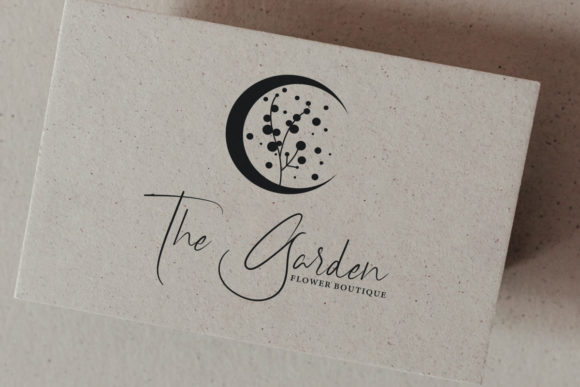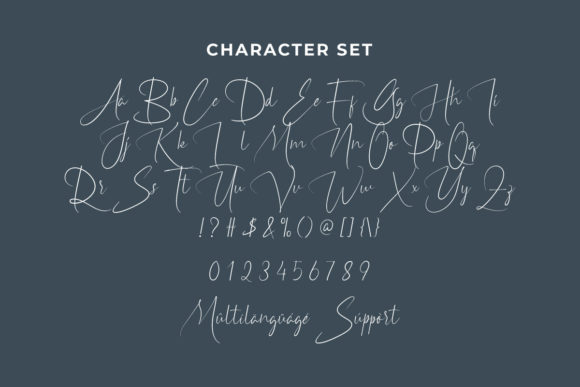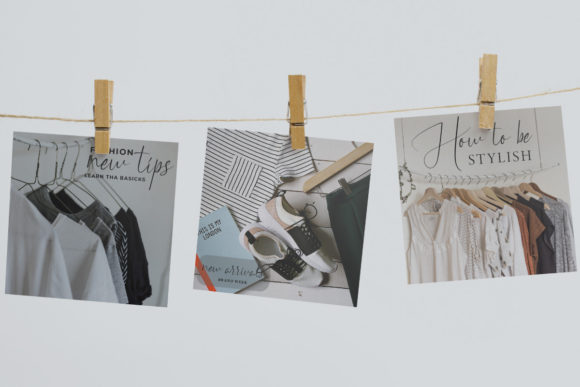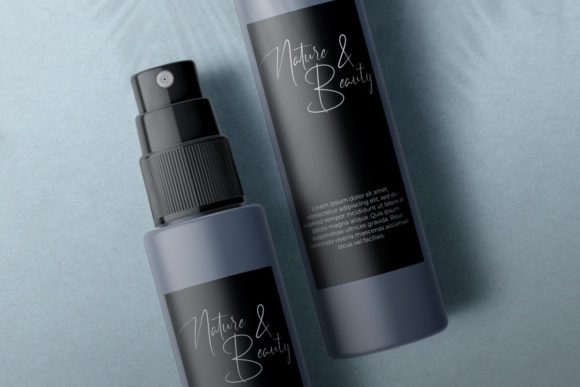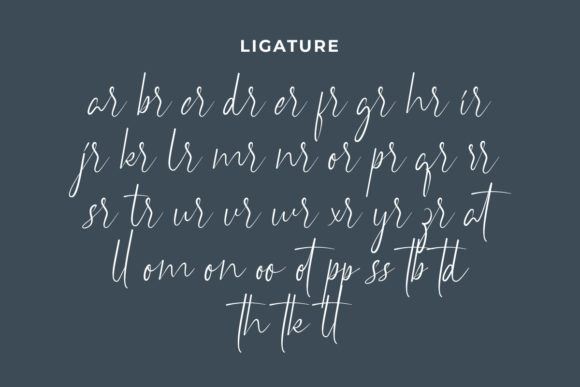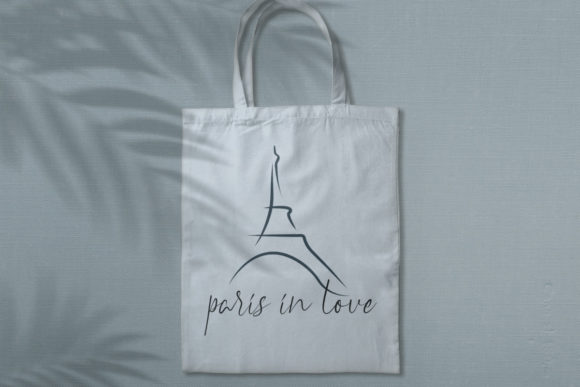
Introducing Happy Moon Font: Elevate Your Designs with Elegance and Versatility
Are you on the hunt for a font that embodies both elegance and versatility? Look no further than the Happy Moon Font. This stunning script font is designed to bring a touch of sophistication to a wide array of crafty projects, making it a must-have for designers and crafters alike. Whether you’re working on letterheads, titles, stationery, or any other creative endeavor, Happy Moon is sure to impress.
What Makes Happy Moon Font Stand Out?
Happy Moon Font is characterized by its thin and elegant script style. The font’s sleek lines and fluid curves give it a modern yet timeless feel, making it perfect for those who appreciate refined aesthetics. Its versatility is one of its most notable features, allowing it to seamlessly integrate into various design projects.
Key Features of Happy Moon Font
- Thin and Elegant Script Style: The Happy Moon Font boasts a delicate and sophisticated appearance, ideal for creating visually appealing text.
- Versatility: From formal letterheads to creative stationery and captivating titles, this font adapts effortlessly to different design needs.
- PUA Encoding: Happy Moon Font is PUA (Private Use Area) encoded, which means that accessing glyphs and swashes is incredibly straightforward. This feature enhances the font’s usability, allowing designers to explore a wide range of creative possibilities.
Applications of Happy Moon Font
The applications of Happy Moon Font are vast and varied. Here are some ideas to get you started:
- Letterheads and Business Correspondence: Add a professional yet elegant touch to your business letters and documents.
- Titles and Headings: Use Happy Moon Font to create eye-catching titles for blog posts, articles, and books.
- Stationery and Invitations: Design beautiful stationery, invitations, and greeting cards that stand out.
- Branding and Packaging: Incorporate Happy Moon Font into your brand’s visual identity to convey a sense of sophistication and refinement.
Tips for Using Happy Moon Font Effectively
To make the most of Happy Moon Font, consider the following tips:
- Pair with Complementary Fonts: Combine Happy Moon Font with sans-serif fonts for a balanced and harmonious look.
- Experiment with Sizes and Colors: Play around with different font sizes and colors to create visual interest and hierarchy.
- Utilize Swashes and Glyphs: Take advantage of the PUA encoding to access a variety of swashes and glyphs, adding a personal touch to your designs.
Happy Moon Font is a beautiful and versatile script font that can elevate your designs to new heights. Its thin and elegant style, combined with PUA encoding for easy access to glyphs and swashes, makes it an excellent choice for designers and crafters. Whether you’re working on a professional project or a personal creative endeavor, Happy Moon Font is sure to inspire and enhance your work.